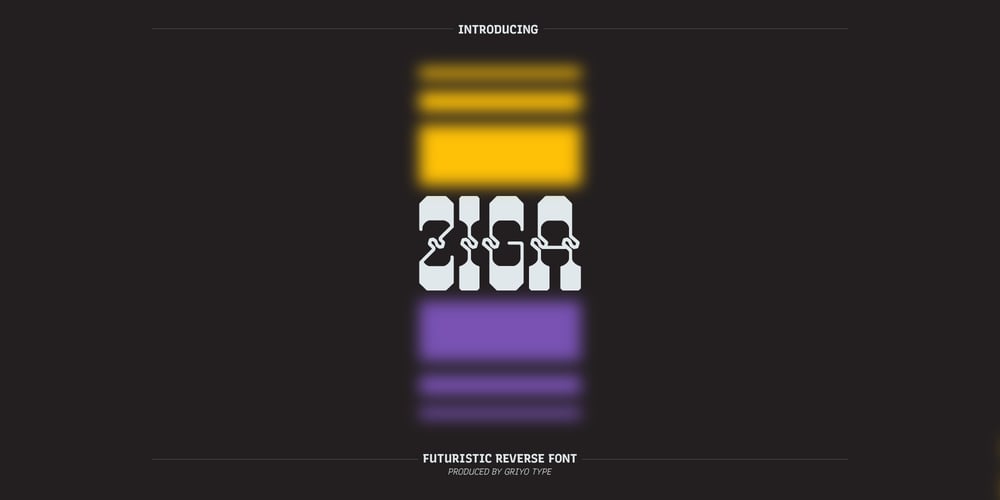
Ziga Font Family was designed by Aprian Sembada and published by Griyotype. Ziga contains 1 styles and family package options. Ziga is a whimsical, wavy and chic display font. It will elevate a wide range of crafting ideas, from cards, to branding, labels and much more.